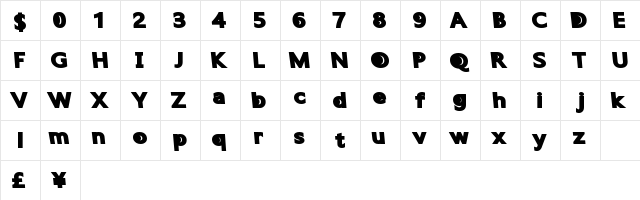
QuantumFuture Regular
| Foundry | Xerographer Fonts |
| Designer | Xerographer Fonts Max Infeld |
Design Context for QuantumFuture Typeface
QuantumFuture has a distinctly futuristic character, with geometric precision and clean angles that feel at home in technology, gaming, and sci-fi contexts.